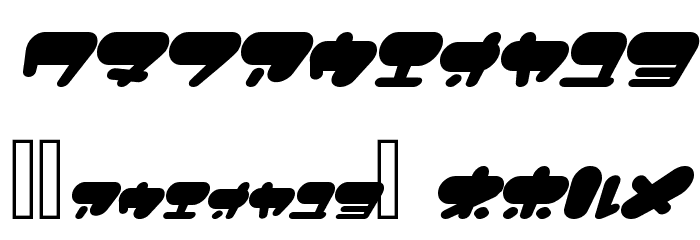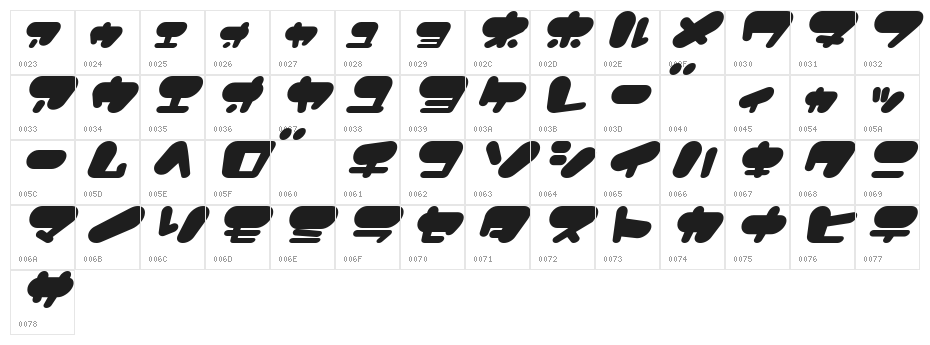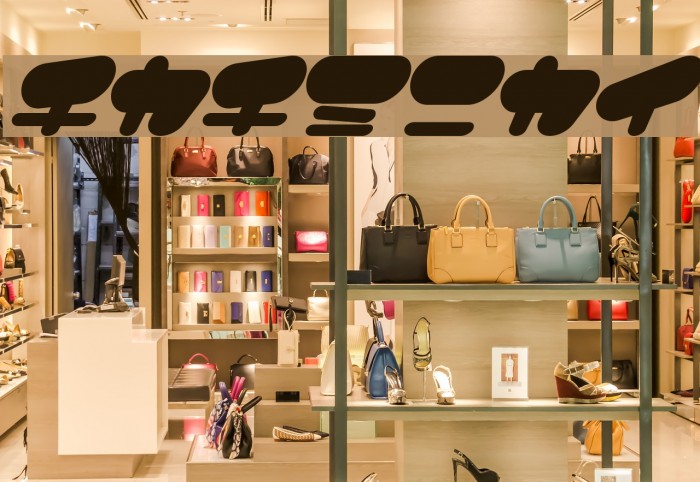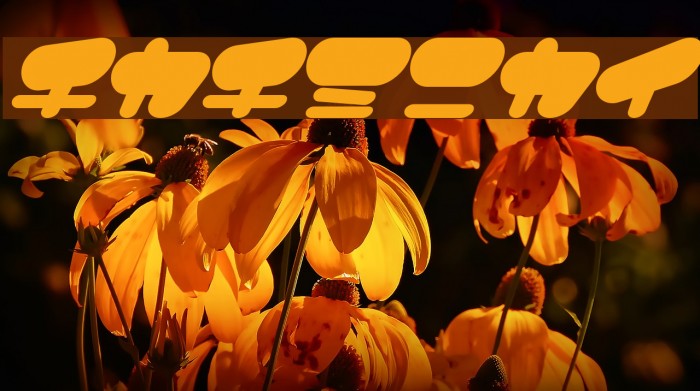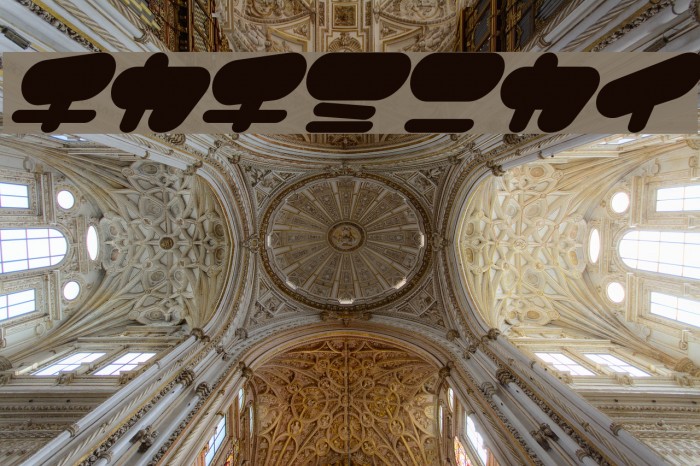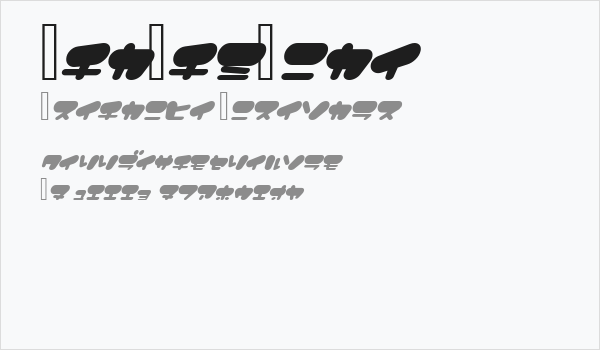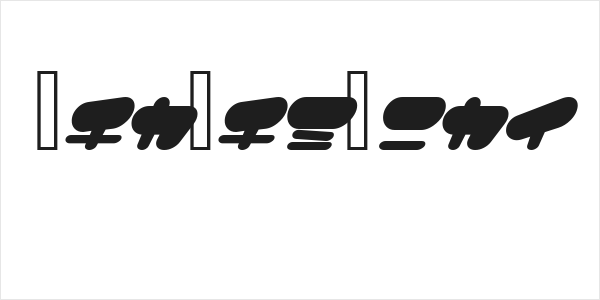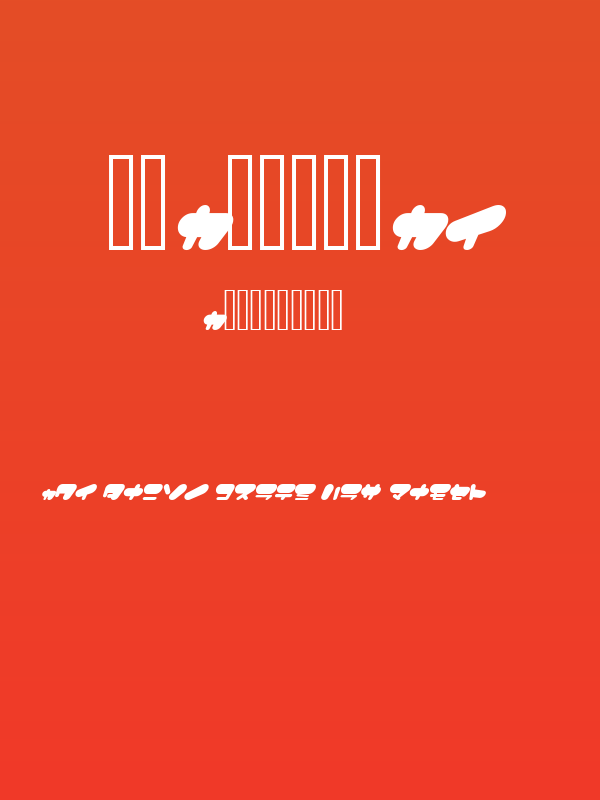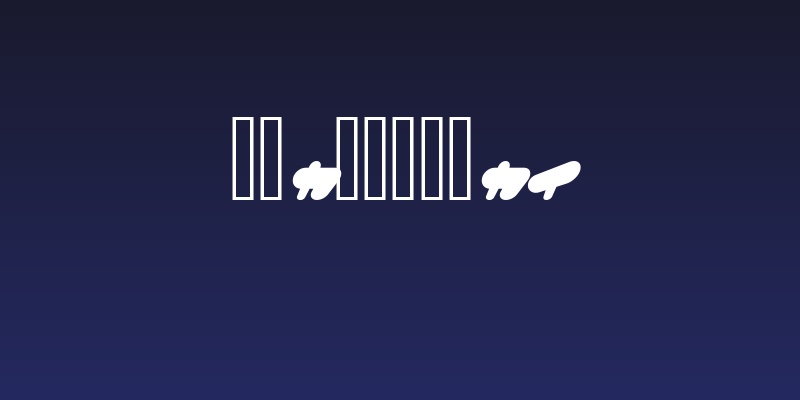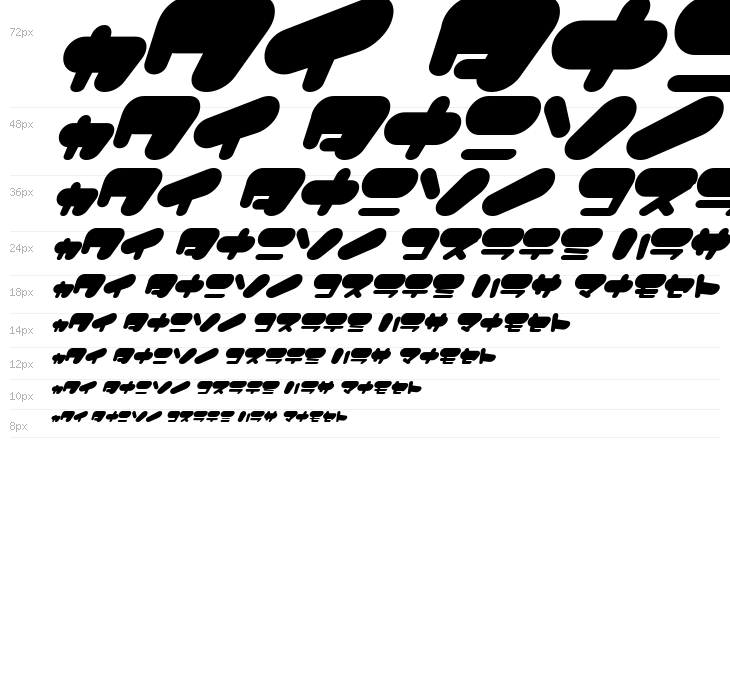
FatManLite Font
FatManLite Description
This font features a bold, playful style with thick, rounded characters that convey a sense of fun and creativity. The letters are heavily stylized, with a unique, almost cartoonish appearance that makes them stand out. The overall design is cohesive, with each character maintaining a consistent weight and shape, contributing to a harmonious look. The font's exaggerated curves and smooth lines give it a distinctive personality, making it ideal for projects that require a touch of whimsy and boldness.
| Overall Style | Playful, Whimsical, Bold |
| Use Case | Logos, Posters, Children's Books |
| Proposed Projects | This font is perfect for children's books, playful branding, posters, and any design that requires a fun and bold statement. |